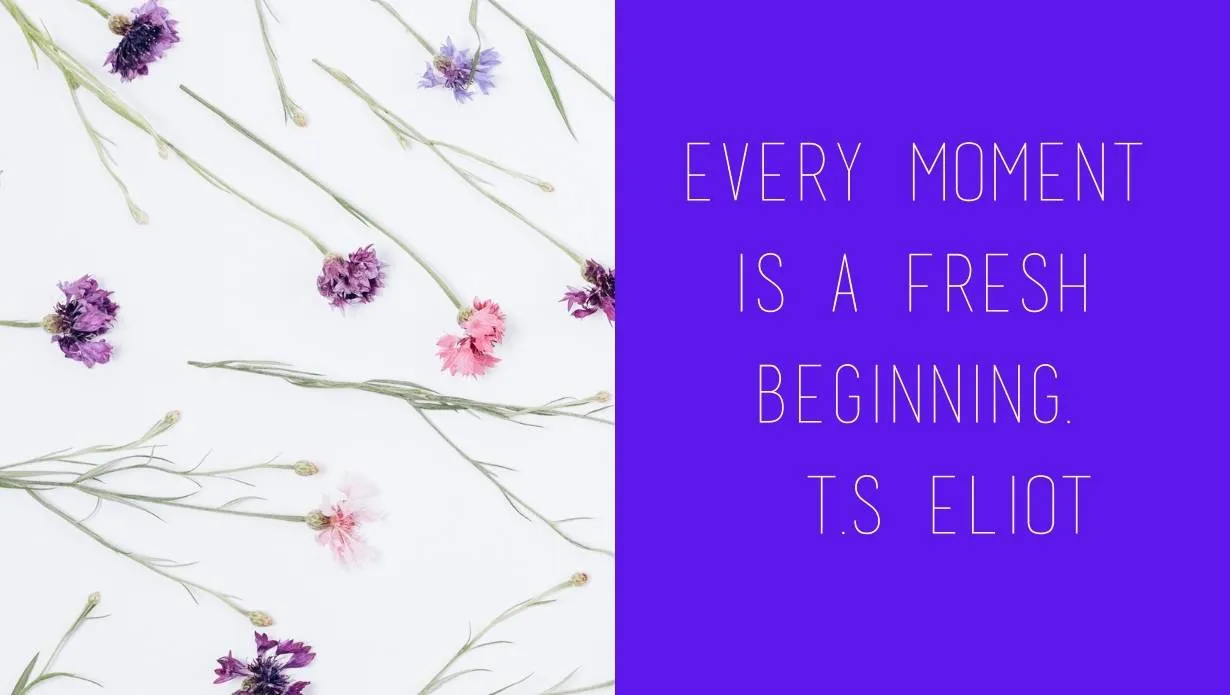
Basic Title Font was developed by Przemyslaw Hoffer. This classy typeface belongs to the Sans-Serif font family. It comes with 6 weights ranging from Regular to Black and it’s ideal for headings, logos, and short paragraphs of text. It looks great on both the web and print.
Basic Title Font Family
This typeface consists of many characters that were designed with extra attention to detail. All the characters have been handcrafted with love. Verb font is similar to this typeface.